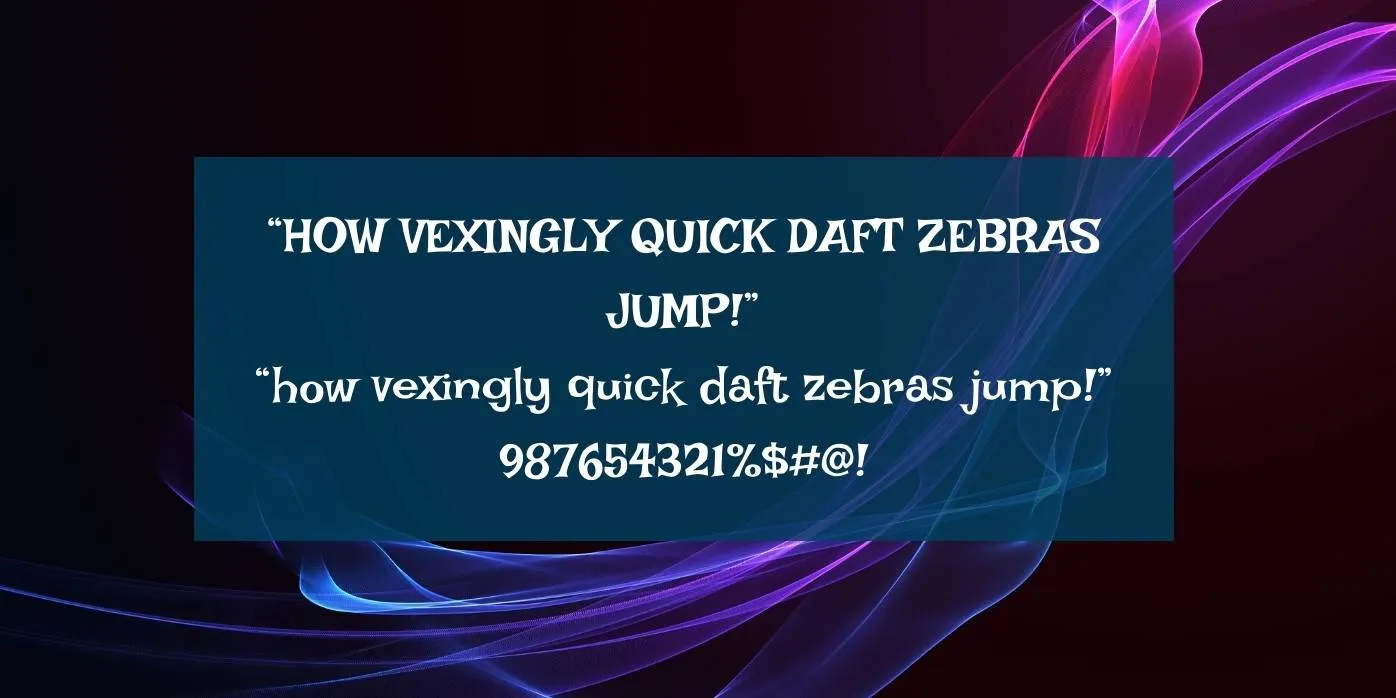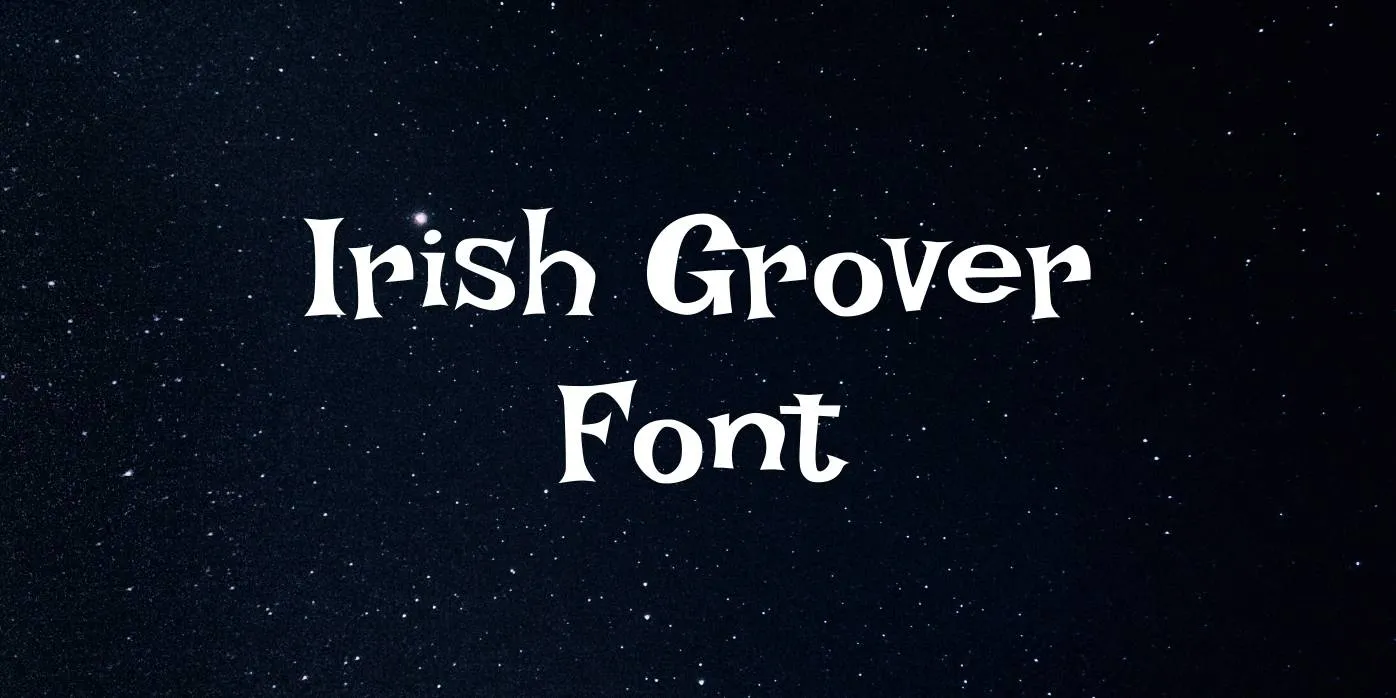
Irish Grover Font
Here, we are going to introduce a stylish family which is known by the name Irish Grover Font. It belongs to the fancy font family. This typeface was designed by a sideshow. You can use this font for various purposes.
Another similar font which is bourbon font is perfect for different designs. The designers have created this font by taking inspiration from the old Irish typefaces. This is a fancy font that includes only uppercase letters, numbers, and punctuation marks. You can use this font for making banners, posters, logos, and other similar designs.